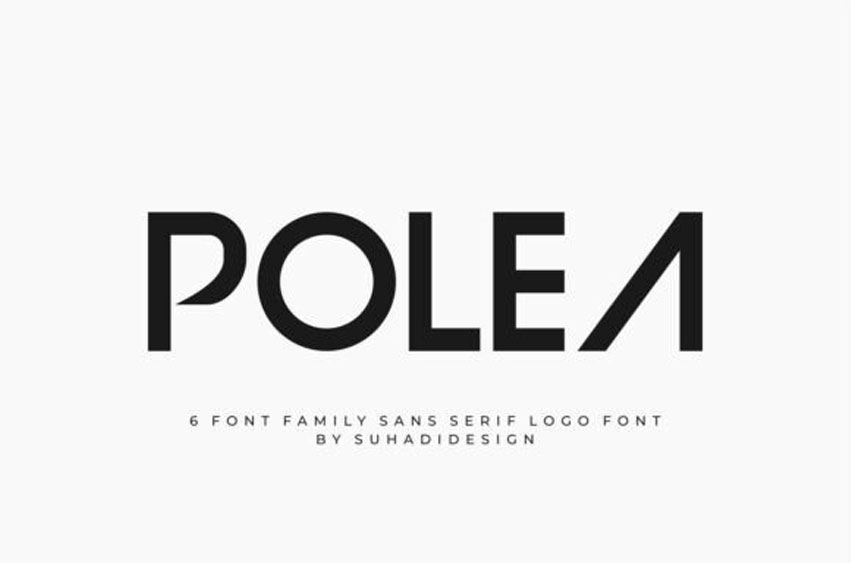
Polea Normal Font Modern Minimalist Sans Serif. Polea is a clean, minimalist sans-serif font crafted in a refined modern style that makes it a standout favorite in today’s design market. Designed to be elegant yet versatile, Polea combines sophistication with simplicity, offering a contemporary look that’s both timeless and on-trend.
This font is your go-to choice for a wide range of creative applications — from logos, fashion labels, and branding materials to posters, packaging, quotes, and social media visuals. Whether you’re designing for luxury brands or minimalist campaigns, Polea delivers clarity and class with effortless ease.